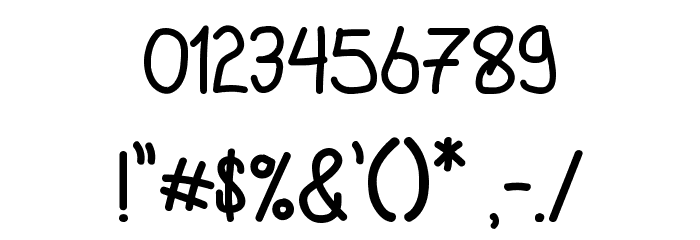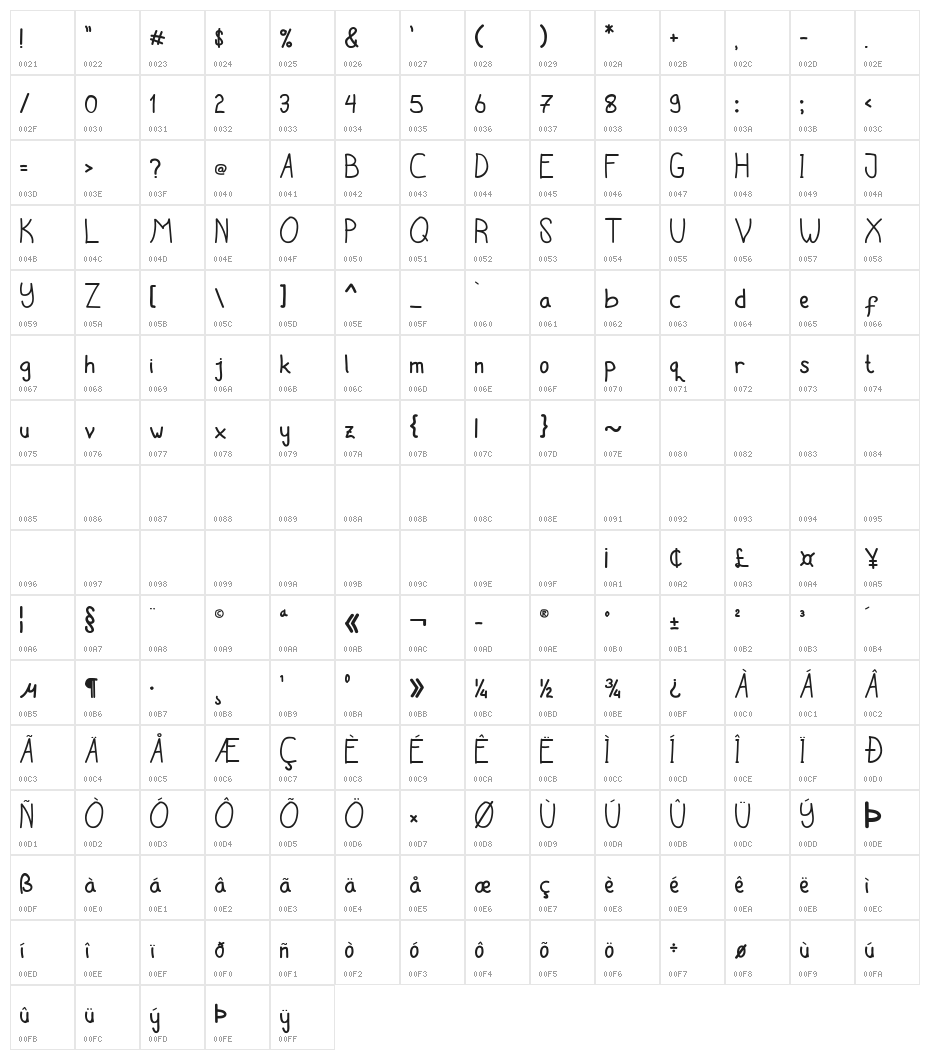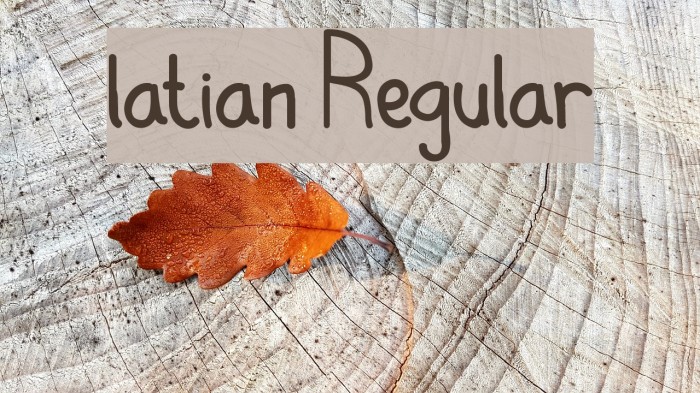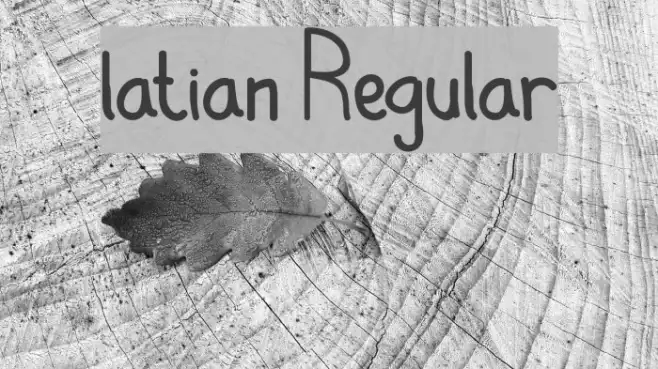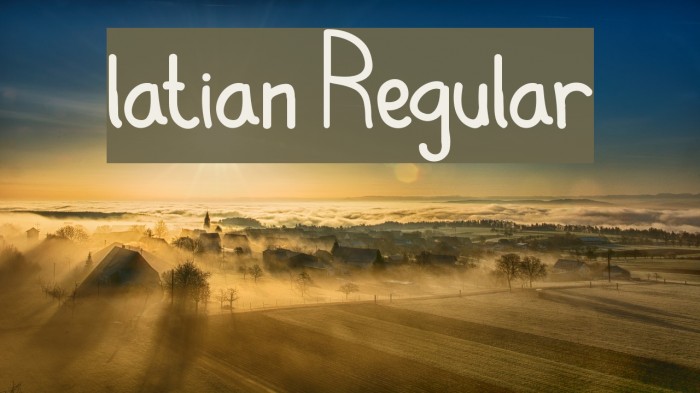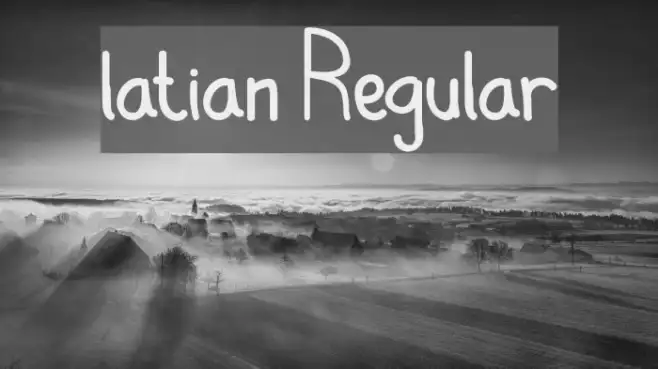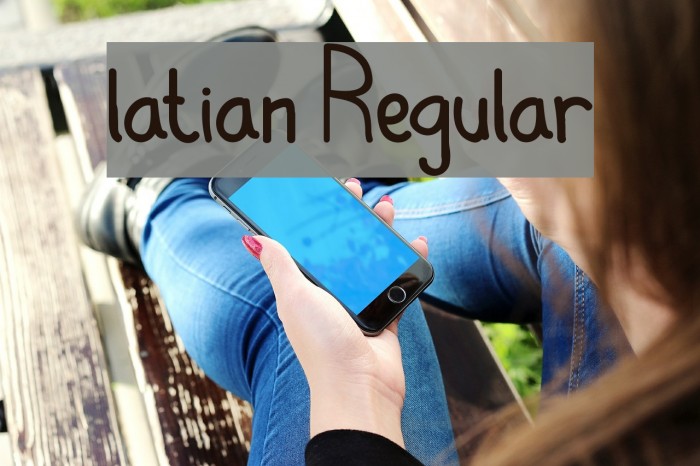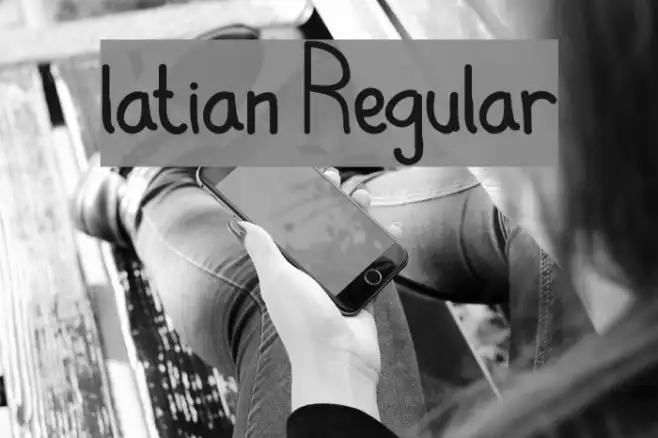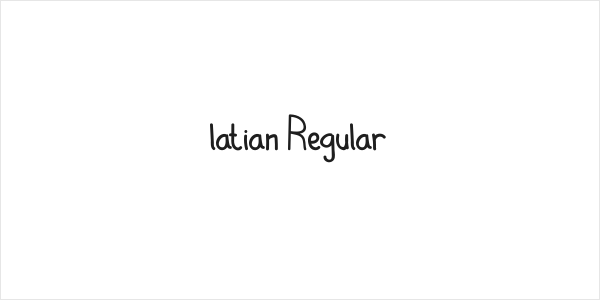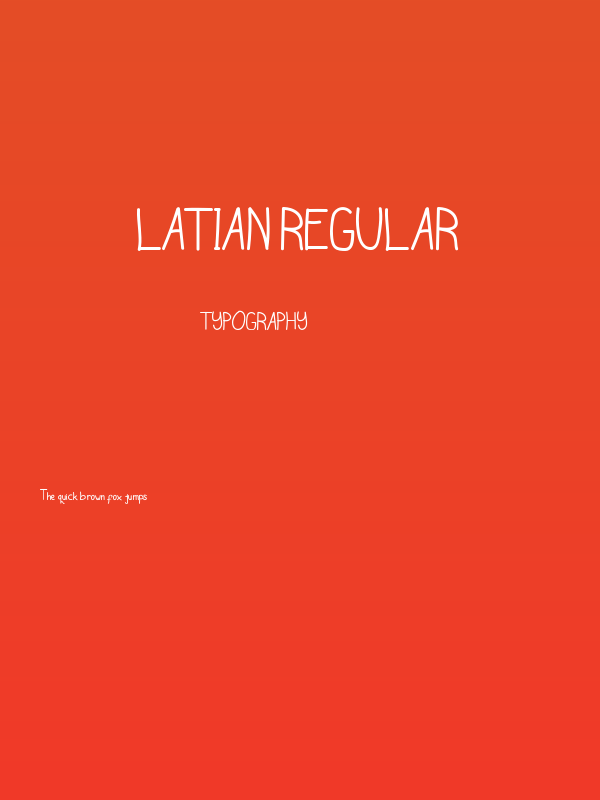
latian Regular Font
latian Regular Description
This font features a playful, handwritten style with a casual and friendly appearance. The characters are slightly irregular, giving it a whimsical and approachable feel. The strokes are consistent in width, providing a uniform look across all characters. The uppercase letters are tall and narrow, while the lowercase letters are more rounded, adding to the font's charm. The numerals and special characters maintain the same playful style, making it versatile for various uses. Its informal nature makes it suitable for creative projects that require a personal touch.
| Proposed Projects | Ideal for greeting cards, children's books, playful branding, and social media graphics. |